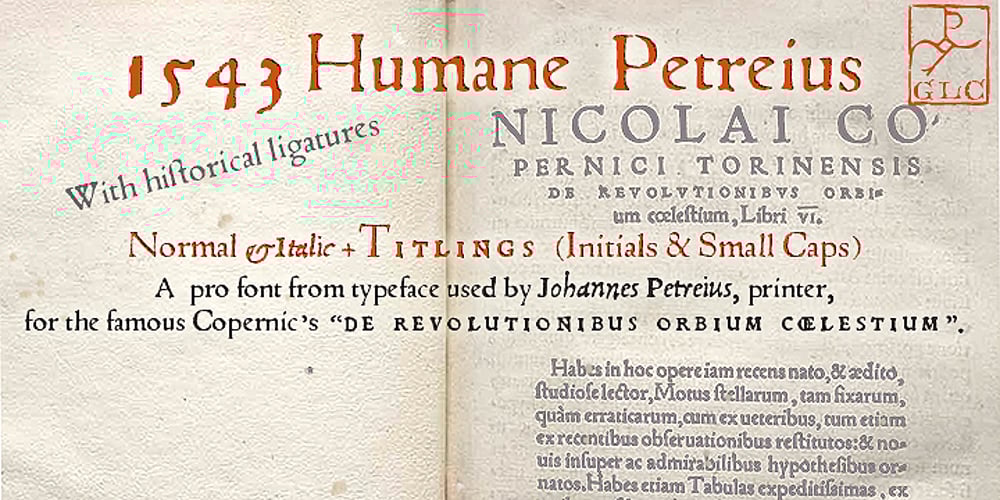
1543 Humane Petreius Font Family was designed by published by GLC. 1543 Humane Petreius contains 2 styles and family package options. The regular style of this family was inspired from the typeface used in Nuremberg, Germany, by Johannes Petreius in 1543 to print the famous “De Revolutionibus Orbium Coelestium,” the well-known mathematical and astronomical essay by Nicolaus Copernicus. Petreius was also using an original italic style, as he did for the “De Sculptura” by Gaurico Pomponio, in 1542. Unfortunately, nobody seems to know who was the punchcutter of this Jenson-style font. Also included is a title file, containing initials (without diacritics) and small caps (with diacritics). In our three styles (Regular & Italic + Titling), font faces, kerning and spacing are as closely as possible identical to the original. This Pro font is covering Western, Eastern and Central European, Baltic and Turkish languages, with standard and long-s ligatures in regular and italic styles. Both have twin-letter ligatures, but the italic style has extra (genuine) ligatures for f and t with vowels.